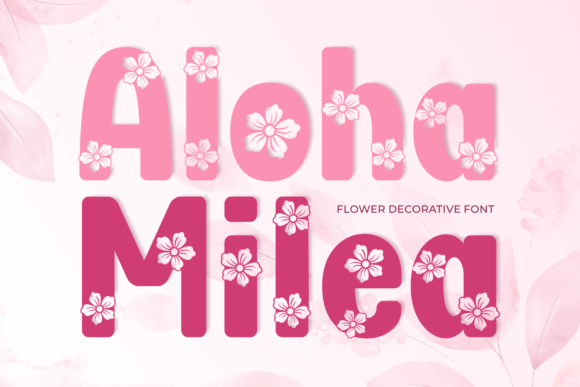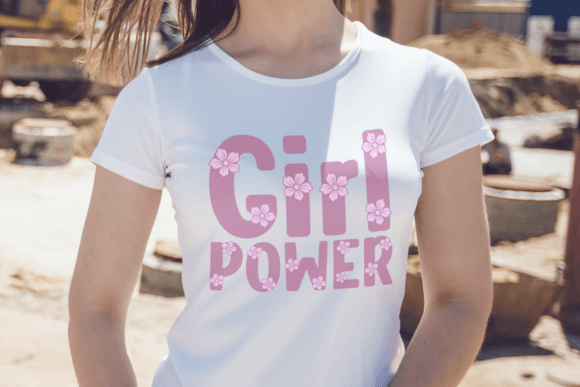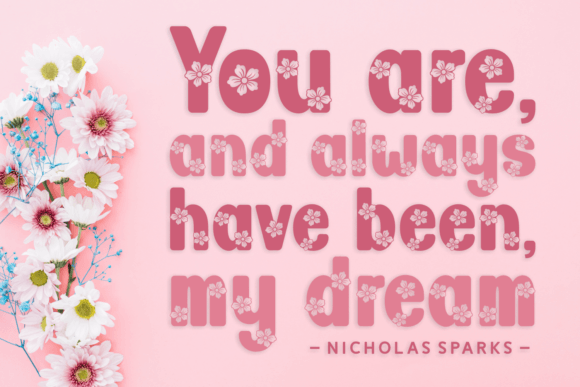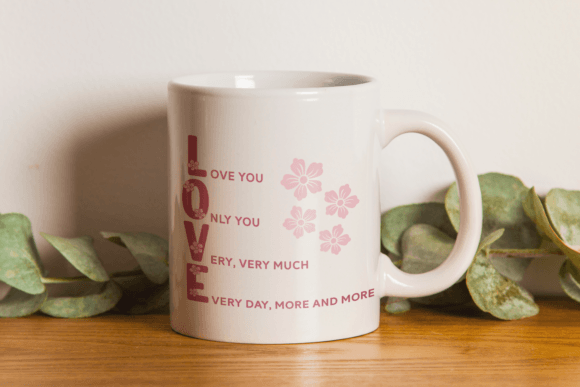
Aloha Milea Font: Cute Floral Display Font for Cricut & Summer Designs
About the Aloha Milea Font
Meet Aloha Milea Font, a stunning font that brings a touch of elegance and professionalism to any design. Aloha Milea is a beautiful decorative font with floral elements. Create lovely designs with this charming font that will suit various projects – Mother’s day gifts, invitations, logos, summer designs, and many more!
Aloha Milea Font Example